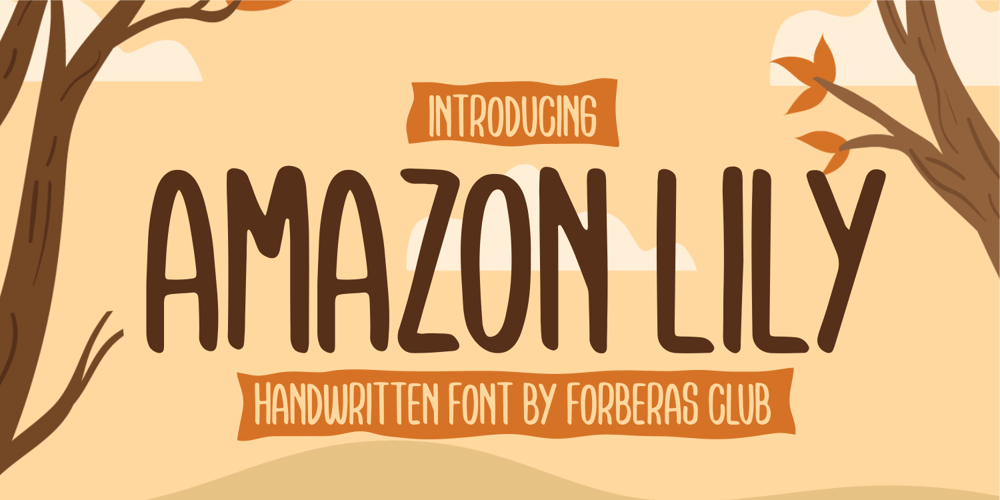
Amazon Lily Font Family was designed by ANGGI HERMAWAN and published by Forberas Club. Amazon Lily contains 1 styles and family package options. Amazon Lily font is a cute and playful font. Can be placed on many concepts. It would be more appropriate if used for something fun and funny.